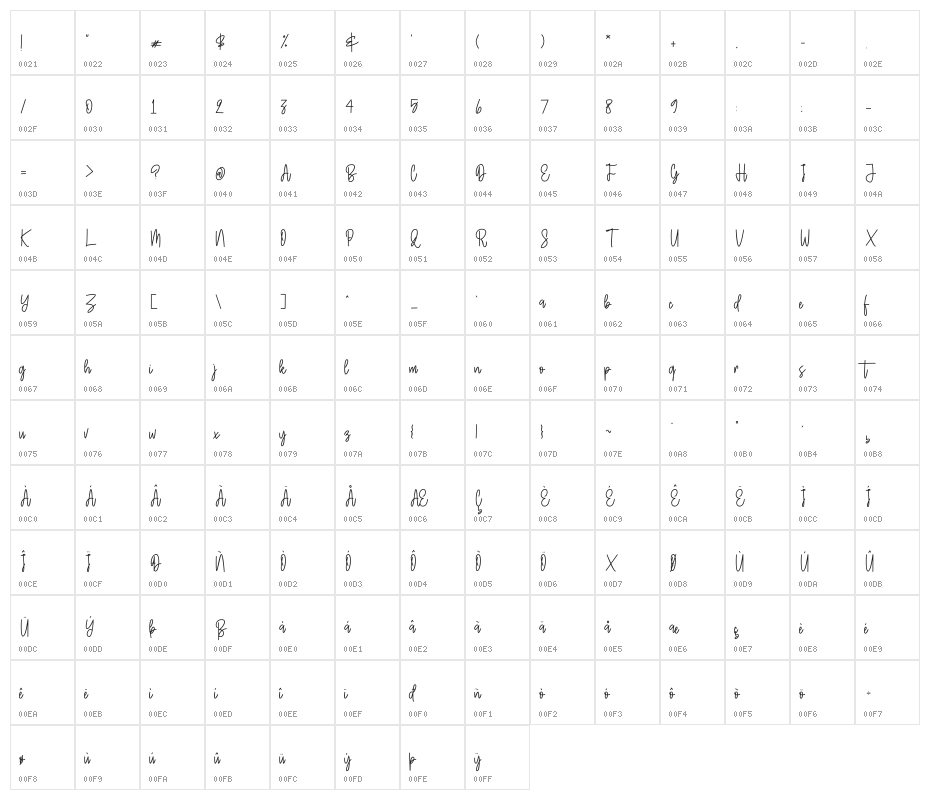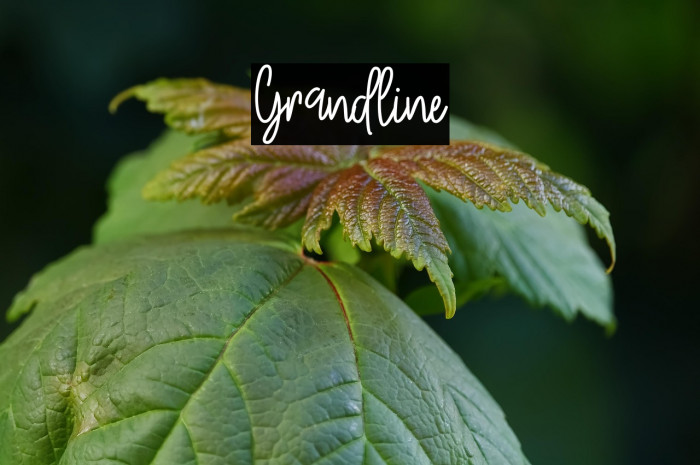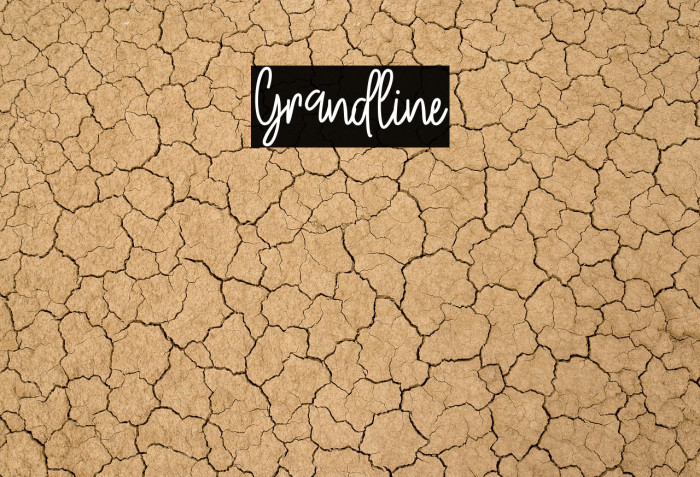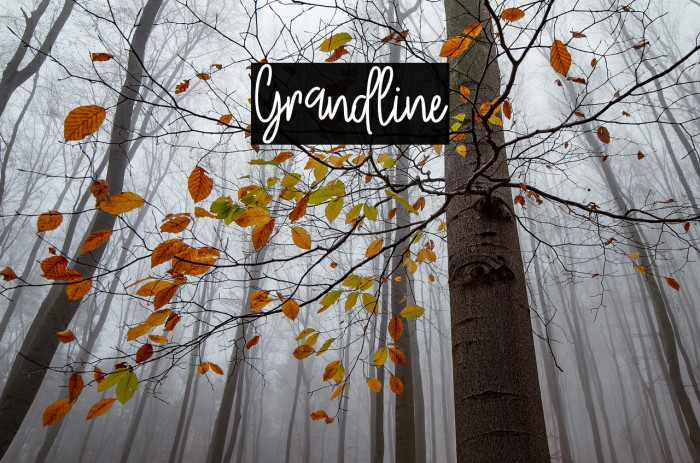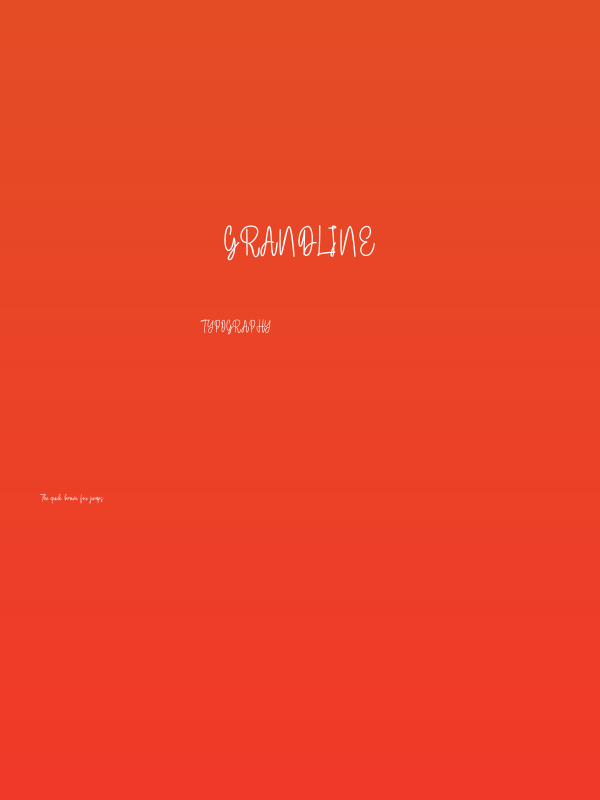
Grandline Font
Grandline Description
This font features a playful and casual handwritten style, characterized by its flowing and connected letterforms. The uppercase letters are tall and slender, with a slight slant that adds a dynamic feel. The lowercase letters maintain a consistent flow, enhancing the handwritten aesthetic. Numbers and special characters are designed to match the overall style, making them cohesive with the alphabet. The font's informal and friendly appearance makes it suitable for creative and personal projects.
| Proposed Projects | Ideal for greeting cards, invitations, personal branding, and creative projects. |